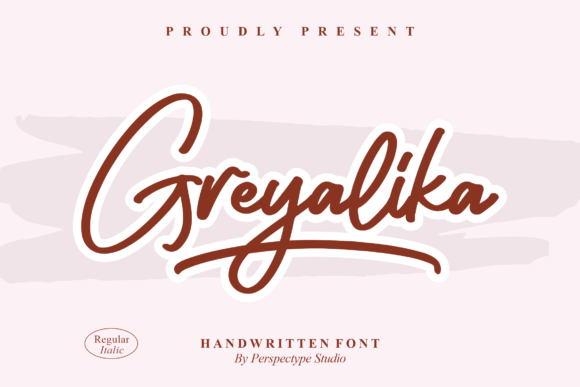
The Perfect Touch: Unlocking the Beauty of Greyalika Font
Have you ever found yourself rummaging through your sketchbook, searching for the perfect pen to bring your latest design idea to life? The scratch of a pencil, the flow of ink, and the imperfect lines that make a piece truly unique – this is the magic of handwritten fonts. For designers looking to add a touch of personality to their projects, the Greyalika Font is a game-changer.
This stylish and versatile font is designed to evoke a sense of natural elegance, making it perfect for wedding invitations, thank you cards, quotes, and more. With its PUA-encoded glyphs and ligatures, designers can easily access a world of creative possibilities. Whether you’re working on a logo, business card, or greeting card, the Greyalika Font is the perfect tool to add a customized touch to your designs.
- Font Family: Greyalika
- Unique Characteristics: The Greyalika font features a unique blend of modern and elegant design elements, making it suitable for a wide range of applications, including logos, branding, and body text.
- Language Support: Supports a wide range of languages, including Latin, Cyrillic, and Greek alphabets
Greyalika Font is an intriguing addition to any design project. ✨ One of its standout features is its unique blend of modern and vintage elements, making it an excellent choice for designs that require a touch of sophistication and nostalgia. The font’s clean lines and subtle flourishes work well together to create a visually appealing aesthetic.
Another aspect that works well in Greyalika Font is its versatility. ✨ It can be used for a wide range of applications, from headings and titles to body text and even logotypes. The font’s flexibility makes it an excellent choice for designers who need to adapt to different design styles and requirements.
However, there are some limitations to consider. ⚠️ The font may not be suitable for designs that require a bold, attention-grabbing look. Additionally, some users may find the font’s vintage elements to be too subtle, making it difficult to notice at times.
Overall, Greyalika Font is a solid choice for designers who want to add a touch of elegance and sophistication to their projects. While it may not be the best fit for every design, it’s definitely worth considering for projects that require a unique and refined aesthetic.
- Unique blend of modern and vintage elements
- Highly versatile and adaptable
- Excellent for headings, titles, body text, and logotypes
- Might not be suitable for bold, attention-grabbing designs
- Subtle vintage elements may be difficult to notice at times
Greyalika font is perfect for creating elegant and sophisticated designs. Here are some tips to get the most out of it:
- Use Greyalika font in combination with other elegant fonts to create a cohesive design.
- Use Greyalika font for headings and titles to create a clear hierarchy of information.
Greyalika font is suitable for a variety of designs, including:
- Business cards and corporate branding.
- Magazine and book covers.
- Editorials and